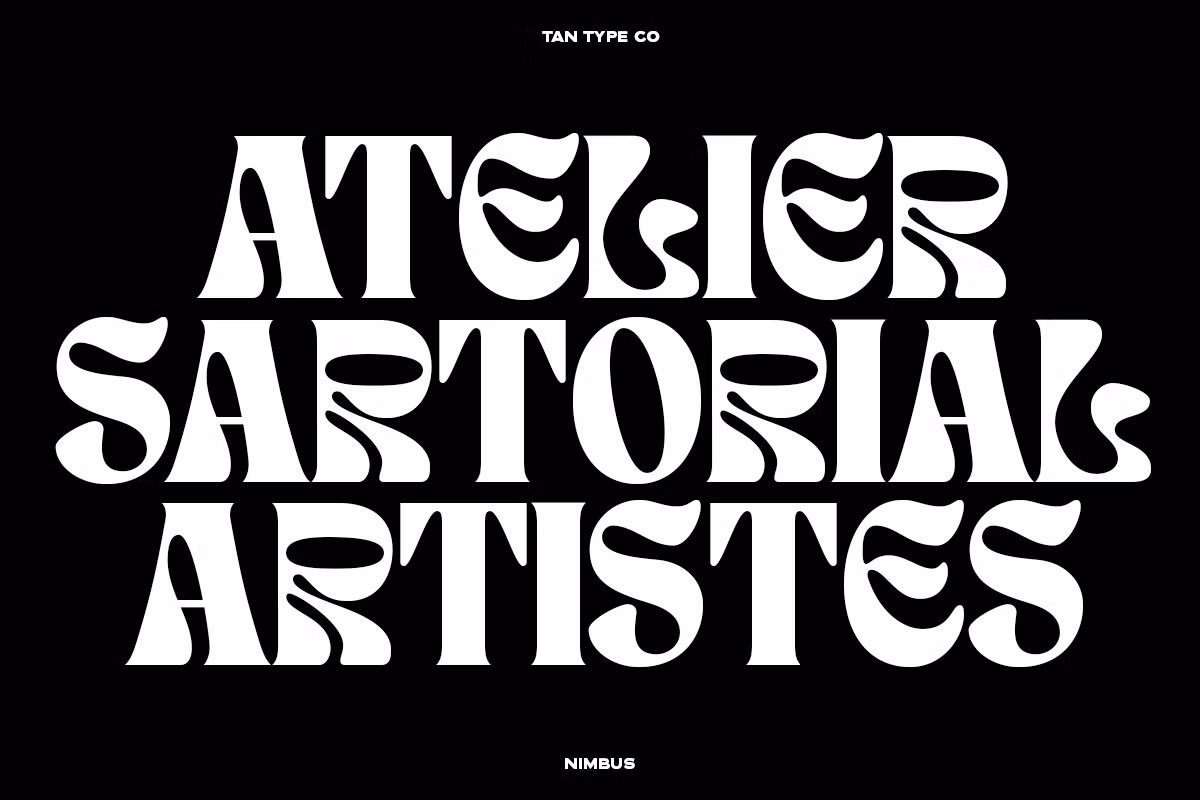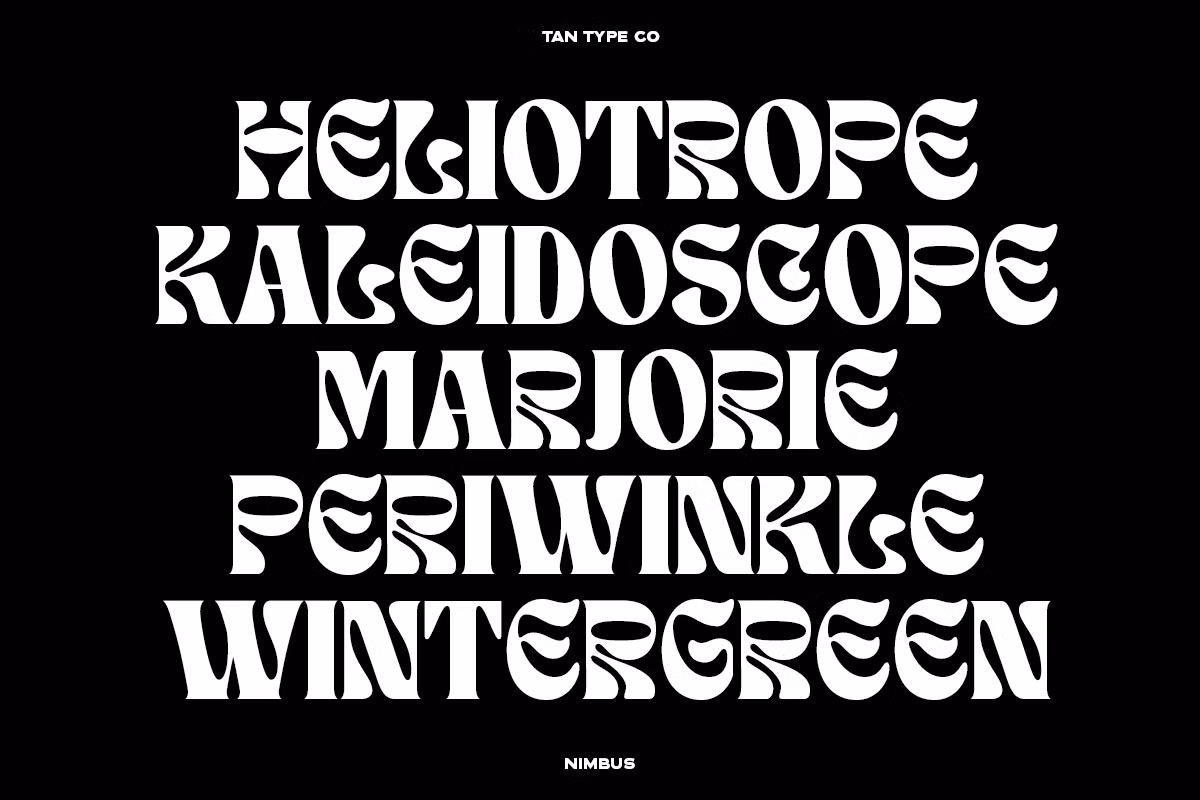
TAN – NIMBUS: Playful Psychedelic Typeface for Bold Design Projects
Introducing TAN – NIMBUS
TAN – NIMBUS is a really cool font that’s inspired by psychedelic stuff. It’s got a nostalgic feel to it, and it’s super creative. The old-school vibe, bold look, and playful feel make it perfect for designers who want to add some fun to their work. You can use it for posters, branding, or digital graphics – it’s really versatile and catches your eye. So, let’s take a closer look at what makes this font so special and how you can use it in your projects.
The style of TAN – NIMBUS is really inspired by the psychedelic art movement. You can see it in the bright colors, fun shapes, and the way everything flows together. This typeface brings all these elements together to create letters that seem to move and feel alive. Every character is designed to be playful and fun, making it great for projects that need to grab attention and make people feel something. The overall look is pretty unique and eye-catching, which is perfect for creative projects that want to stand out.
TAN-NIMBUS has a strong, clear look that makes it easy to read, even when it’s big. The old-school touches give it a classic feel that lots of people like. This font works well in both modern and old-style designs, so it’s a good choice for many different uses.
Character Sets
TAN – NIMBUS has a huge range of characters, including big and small letters, numbers, and lots of different punctuation marks. This means designers can create whatever they want without being held back. Each character is designed to be special, so every word really stands out. Whether you’re working on a big project or just a small idea, TAN – NIMBUS gives you the freedom to express yourself in a unique way. With its one-of-a-kind style, you can make your words truly unforgettable.
The characters are not just ordinary letters and numbers, but are designed to add a touch of personality to your design. This makes TAN – NIMBUS a great choice for anyone looking to add some flair to their work. TAN – NIMBUS is also great for projects that need to be used in different countries because it can show many kinds of letters from various languages. It has lots of special characters and different ways of writing letters, which gives designers more freedom to make their text look really unique and perfect for what they’re working on.
TAN – NIMBUS is really great for lots of different design projects. Let’s take a look at some of the best ways to use it.
- Posters and flyers: Great for getting your message across fast.
- Branding and Logo Design: Helps create memorable brand identities that resonate with audiences.
- Packaging: Elevates package designs for products aimed at a younger demographic.
- Web and App Design: Creates a dynamic online presence that stands out from competitors.
- Merchandise: Makes t-shirts to stickers pop with vibrant letters.
Explore how TAN – NIMBUS can be paired with other fonts and styles to enhance your designs further.